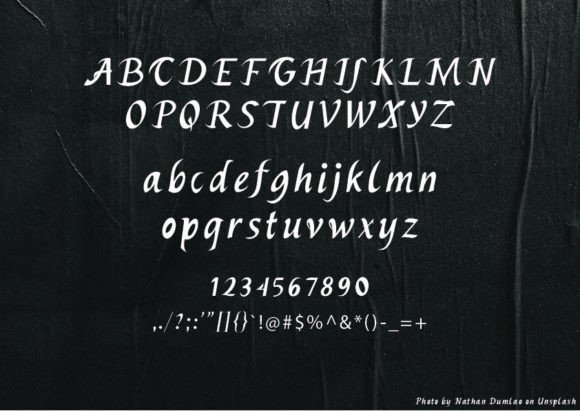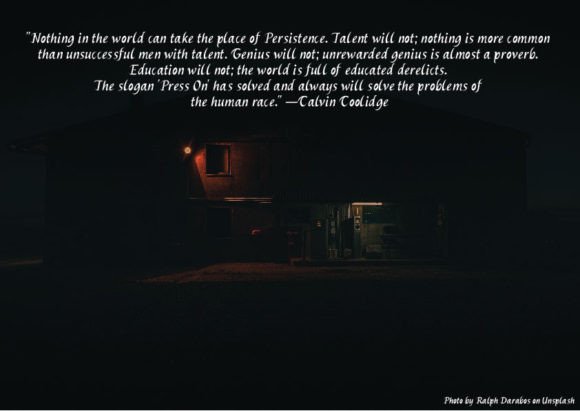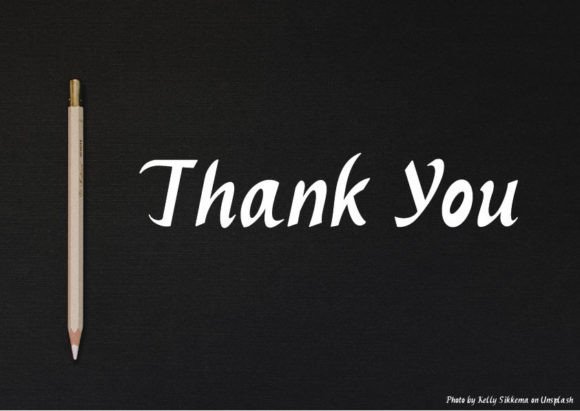
Djambool Bul Font: Elevate Your Designs with Relaxed Elegance
In the world of typography, fonts play a crucial role in conveying the tone and personality of a brand or design. For designers and crafters seeking a unique and captivating display font, Djambool Bul is an exceptional choice. This exquisite font strikes the perfect balance between refinement and casualness, adding a touch of relaxed elegance to any project.
The Characteristics of Djambool Bul Font
Djambool Bul is a display font that boasts soft curves and organic shapes, giving each letter a natural charm that’s both welcoming and sophisticated. The font’s design is characterized by:
- Soft Curves: Djambool Bul’s curves are smooth and gentle, creating a sense of fluidity and visual harmony.
- Organic Shapes: The font’s shapes are inspired by nature, lending a sense of authenticity and earthiness to the design.
- Effortless Beauty: Djambool Bul exudes a carefree elegance that’s perfect for designs that require a touch of sophistication without being too formal.
Perfect for Branding, Packaging, and More
Djambool Bul is an incredibly versatile font that’s suitable for a wide range of design applications, including:
- Branding: Use Djambool Bul to create captivating logos, business cards, and letterheads that reflect your brand’s personality.
- Packaging: Add a touch of elegance to your product packaging with Djambool Bul, perfect for labels, tags, and other design elements.
- Design Elements: Incorporate Djambool Bul into your design projects, such as posters, flyers, and brochures, to add a touch of sophistication and visual appeal.
Why Choose Djambool Bul Font?
With so many fonts available, why choose Djambool Bul? Here are just a few reasons why designers and crafters love this exceptional display font:
- Unique Style: Djambool Bul offers a distinctive style that’s both refined and casual, making it perfect for designers seeking a font that stands out from the crowd.
- Easy to Read: Despite its elegant design, Djambool Bul is surprisingly easy to read, making it suitable for both headlines and body text.
- Highly Versatile: Djambool Bul can be used in a wide range of design applications, from branding and packaging to digital and print media.
Tips for Using Djambool Bul Font
To get the most out of Djambool Bul, here are some expert tips for incorporating this beautiful font into your designs:
- Pair with Contrasting Fonts: Combine Djambool Bul with contrasting fonts to create visual interest and hierarchy in your designs.
- Experiment with Colors: Djambool Bul looks stunning in a range of colors, from soft pastels to rich jewel tones. Experiment with different hues to find the perfect match for your design.
- Play with Size and Scale: Djambool Bul is a display font, so don’t be afraid to experiment with different sizes and scales to create visual impact.
Djambool Bul is a truly exceptional display font that offers a unique blend of elegance and casual charm. With its soft curves, organic shapes, and effortless beauty, this font is perfect for designers and crafters seeking to add a touch of sophistication to their designs. Whether you’re working on branding, packaging, or other design elements, Djambool Bul is an excellent choice. So why not give it a try and see how this beautiful font can elevate your designs?